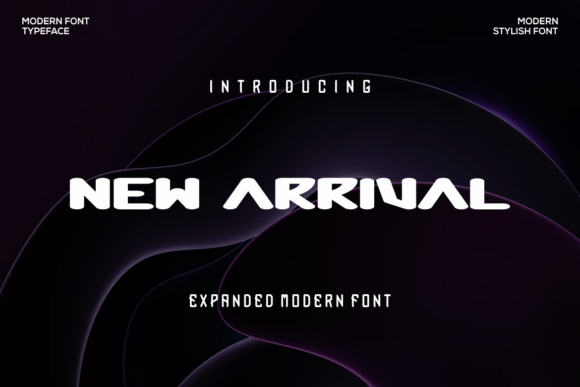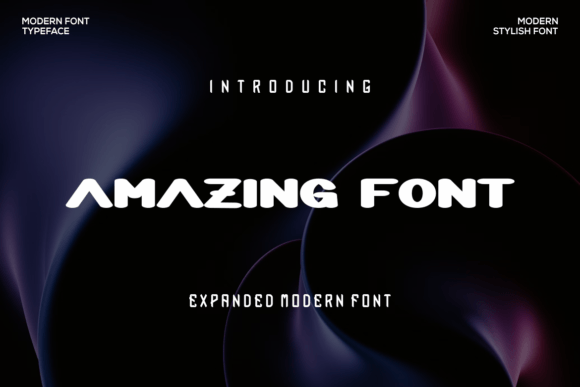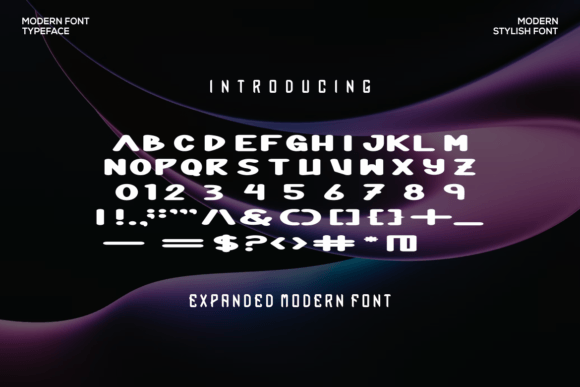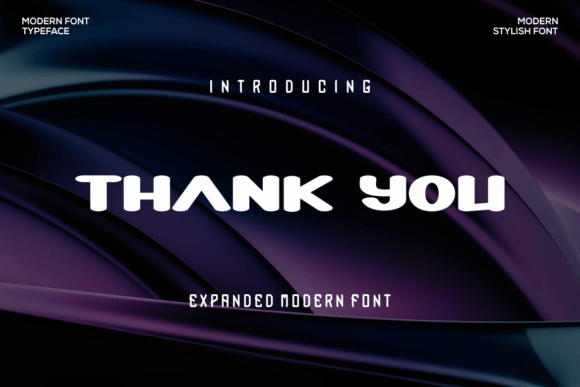
Introducing Hembul Font: The Modern Display Font You Need
Have you ever been in the middle of a design project, and suddenly, you’re stuck on finding the perfect font? I recall a recent experience where I was working on a branding project for a trendy coffee shop. The client wanted a bold, eye-catching font that would stand out on their merchandise and marketing materials. After hours of searching, I stumbled upon **Hembul Font**, and it instantly became the perfect fit. In this article, I’ll share my experience with Hembul Font, its features, and how to make the most of it in your designs.
What I Love About Hembul Font
Hembul Font is a modern display font that has won my heart with its bold and authentic style. Here are some of the things I love about it:
- ✨ Bold and eye-catching: Hembul Font is perfect for making a statement in your designs. Its bold style ensures that your text stands out, making it ideal for logos, t-shirt printing, and creative products.
- ✅ Highly versatile: This font is extraordinary in a variety of contexts. Whether you’re designing a logo, a brochure, or a social media post, Hembul Font adapts seamlessly.
- 🔥 Modern and fresh: The font’s modern style gives it a fresh and contemporary feel, making it perfect for brands that want to appear current and trendy.
Honest Review: A Few Quirks
While Hembul Font is an excellent choice for many design projects, it’s not without its limitations. Here are a few quirks to consider:
- 🤔 Limited use in body text: Due to its bold style, Hembul Font may not be the best choice for body text, especially in longer paragraphs. It’s better suited for headings and titles.
- ⚠️ Requires careful kerning: As with any bold font, kerning can be a bit tricky. Make sure to adjust the kerning to ensure that your text looks balanced and visually appealing.
The Backstory Behind Hembul Font
Hembul Font was designed with the goal of creating a bold and authentic display font that would meet the needs of modern designers. The designer aimed to create a font that would be versatile, fresh, and highly legible. Through careful craftsmanship and attention to detail, Hembul Font was born.
| Font Name | Hembul Font |
| Author | agusbolang1616 |
| What is Hembul Font? | Hembul Font is a modern display font designed for bold and eye-catching designs. |
| What is Hembul Font best used for? | Hembul Font is best used for logos, t-shirt printing, creative products, and other branding materials. |
| Is Hembul Font available in different styles? | Currently, Hembul Font is available in a single style. However, the designer may release additional styles in the future. |